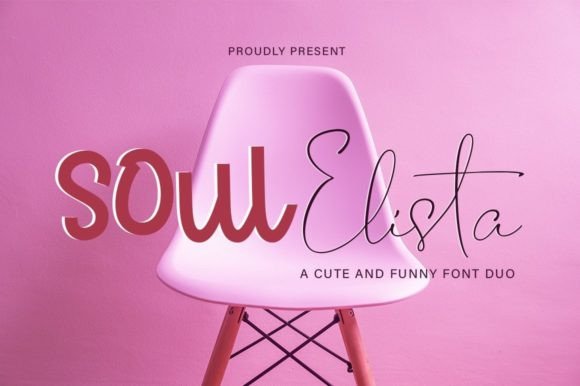
Indulge in the ethereal grace of Soul Elista, a mesmerizing script font that captivates the senses. Its delicate strokes dance upon the page, evoking a symphony of emotions that lingers in the heart.
Whether you're weaving enchanting invitations or crafting spellbinding branding, Soul Elista empowers you to express your vision with unparalleled elegance. Its effortless compatibility with semi-serif fonts weaves a celestial tapestry that transports you to realms of limitless creativity.
Let this font ignite your imagination as you craft captivating social media posts, adorn your products with enchanting allure, or design captivating labels that whisper secrets. Soul Elista elevates your special events, infusing them with a timeless grace that will leave an unforgettable mark.
Embrace the transformative power of Soul Elista today. As a PUA-encoded font, it grants you effortless access to a world of characters and swashes, empowering you to unleash your typographic brilliance. Dive into the depths of its enchanting serifs and let your designs soar to new heights of beauty.
With Soul Elista, your words will transcend the mundane, becoming ethereal whispers that captivate the soul. Invest in this extraordinary font and elevate your creations to the realm of the sublime.